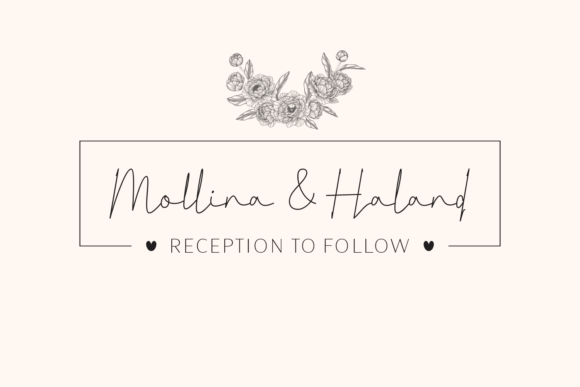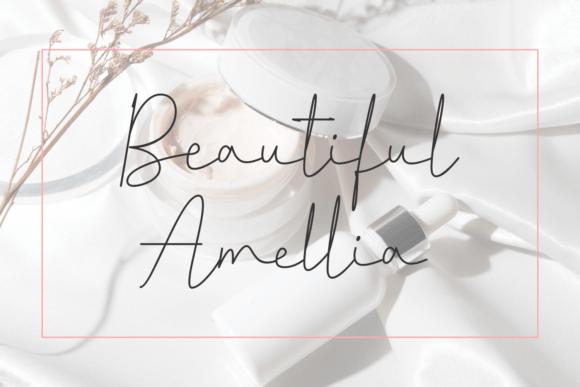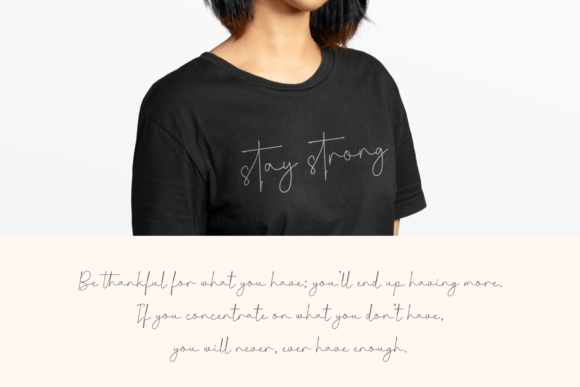
Introduction to Mother Stella Font
Have you ever stumbled upon a font that makes your design come alive? For me, that moment was when I first laid eyes on the Mother Stella Font. Its elegant, handwritten touch instantly sparked creativity, and I knew I had to dive in and explore its possibilities.
As a designer, you’re always on the lookout for that special something to elevate your projects. Mother Stella Font is the perfect addition to your design arsenal, offering a timeless and distinct style that’s sure to make your work stand out. Whether you’re working on a creative project or need a high-quality font for a design resource, this font is a valuable find.
Key Features of Mother Stella Font
- Unique, hand-drawn style with a transparent background, ideal for adding a personal touch to designs.
- Includes a comprehensive character set, covering a wide range of languages and characters.
- Perfect for designers, artists, and writers seeking a distinctive and elegant font for their creative projects.
Honest Review: Mother Stella Font
I recently stumbled upon the Mother Stella Font, and I must say it’s been a game-changer for my creative projects. This free download has been a lifesaver for designers like me who are always on the lookout for high-quality design resources.
- ✨ High-quality design: The Mother Stella Font boasts a beautiful, elegant design that’s perfect for a variety of creative projects.
- ✨ Versatility: This font is incredibly versatile and can be used for both personal and commercial projects.
- ✨ Transparent background: The font has a transparent background, making it easy to layer over other design elements.
- ⚠️ Limited font sizes: While the font is available in a range of sizes, it’s not ideal for extremely large or small text.
- ⚠️ Limited language support: The font may not support all languages, which could be a limitation for international design projects.
Overall, I’m thoroughly impressed with the Mother Stella Font. It’s a fantastic addition to any designer’s toolkit, and I highly recommend it for your next creative project.
Tips for Getting the Most Out of Mother Stella Font
Use the Mother Stella Font to add a touch of elegance to your designs. Pair it with a transparent background to create a high-quality design resource. Experiment with different font sizes and styles to add visual interest to your creative project.
Common Use Cases for Mother Stella Font
The Mother Stella Font is ideal for use in wedding invitations, birthday cards, and other special occasion designs. It’s also great for use in branding and marketing materials, such as logos and brochures.